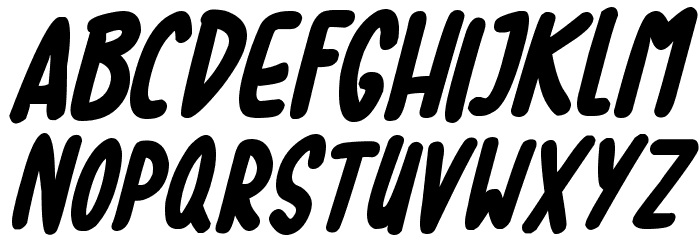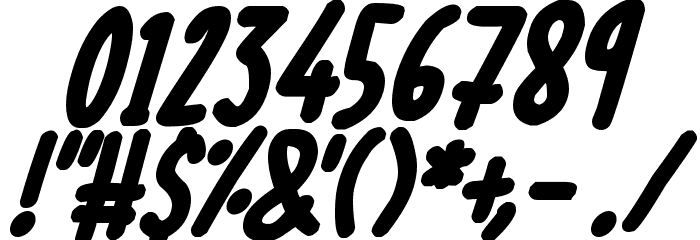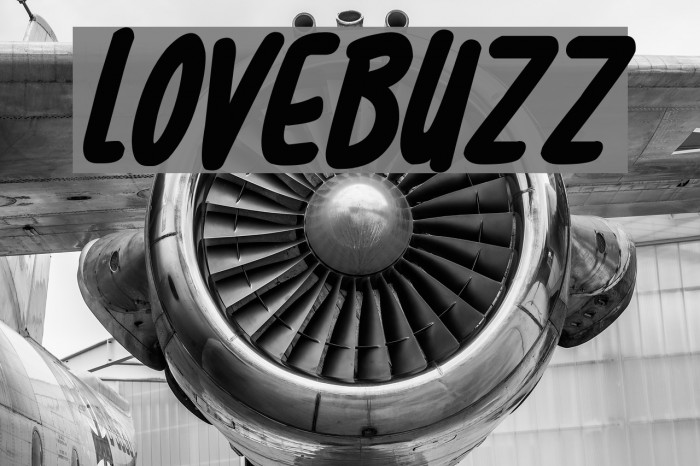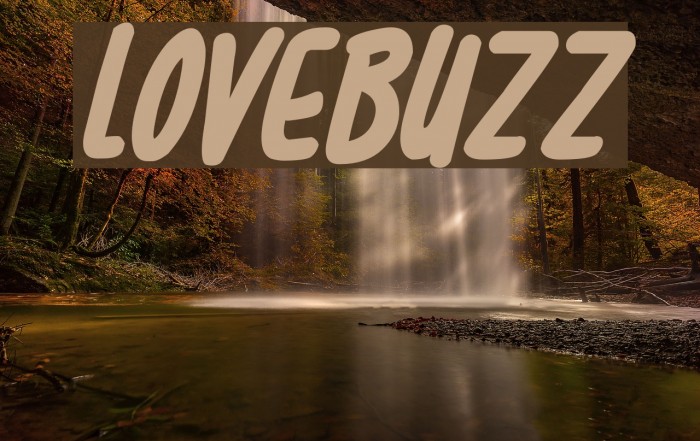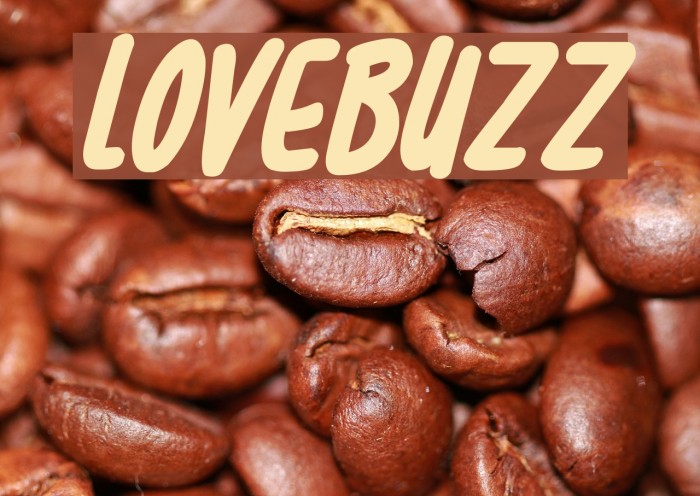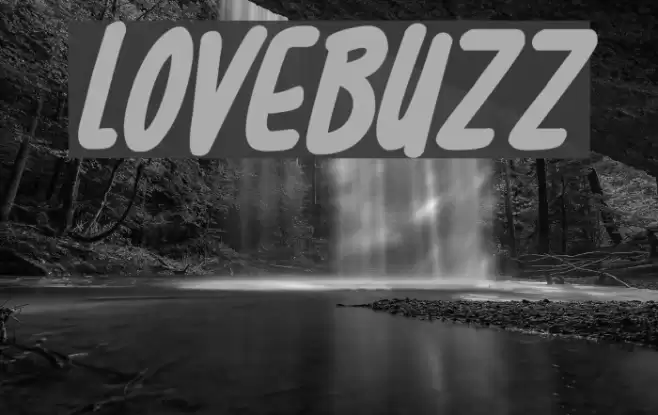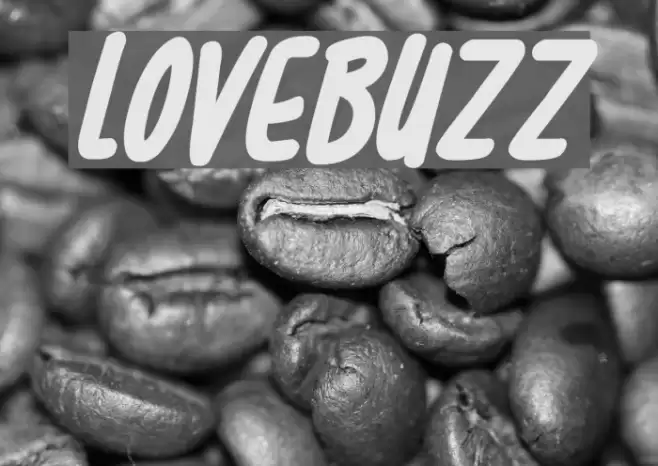
Lovebuzz Font
This font features a bold and dynamic style with a handwritten appearance. The letters are slightly slanted, giving a sense of movement and energy. The strokes are thick and consistent, creating a strong visual impact. The characters are closely spaced, contributing to a compact and cohesive look. The font includes a full set of uppercase and lowercase letters, numbers, and a variety of special characters. Its playful and informal style makes it suitable for creative and expressive designs.
A bold, handwritten-style font with dynamic, slanted characters.
- Proposed Projects: Ideal for posters, branding, social media graphics, and any project requiring a lively and informal touch.